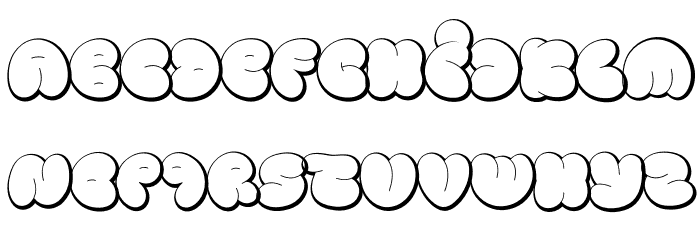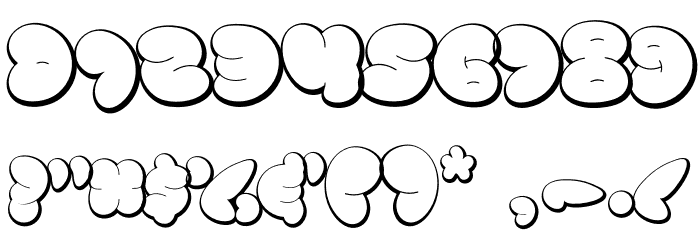
Vandal Blow Graffiti Shadow Font
This font features a bold, playful design reminiscent of graffiti art, with each character appearing as if it's inflated or puffed up. The letters are rounded and have a shadow effect that gives them a three-dimensional appearance. The style is informal and energetic, capturing the essence of street art with its exaggerated curves and whimsical forms. The font maintains consistent thickness throughout each character, contributing to its cohesive look. It's ideal for projects that require a fun and eye-catching aesthetic.
A bold, graffiti-inspired font with a playful, inflated appearance and shadow effect.
- Font: Vandal Blow Graffiti Shadow
- Proposed Projects: Perfect for street art designs, urban-themed posters, youth-oriented branding, and playful event invitations.
- Category: Decorative/Display
- Width: Expanded
- Overall Style: Modern, Urban